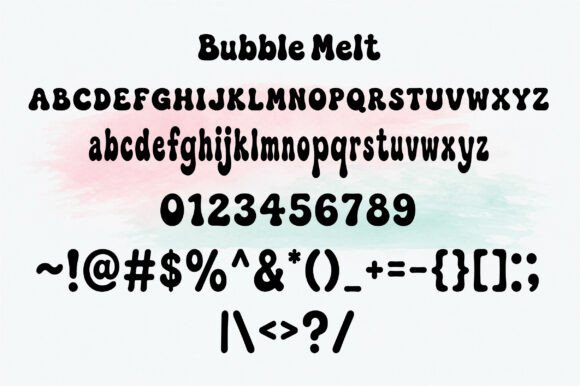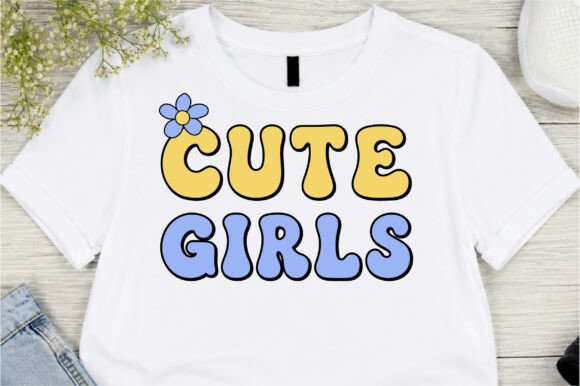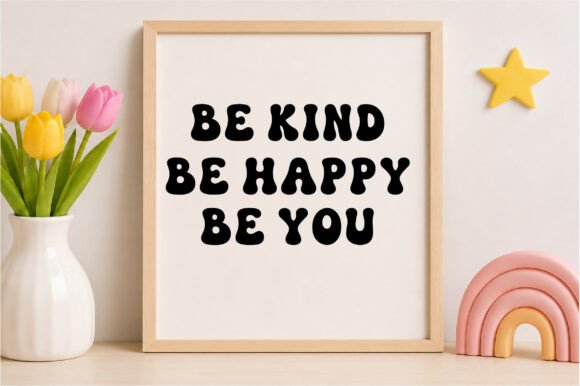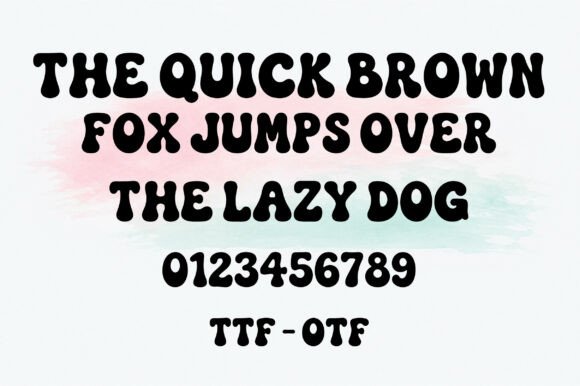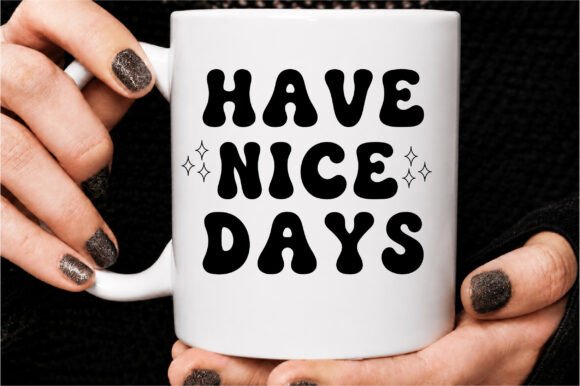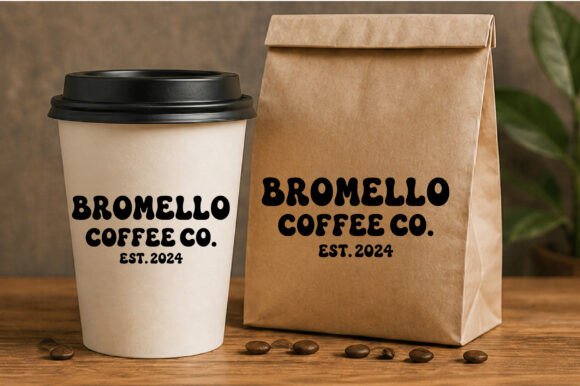
Get Ready to Make a Splash with Your Designs
Who hasn’t had one of those moments where you’re brainstorming ideas for a project and suddenly, a spark of creativity hits you? Maybe it’s a quirky character, a bright color palette, or a playful font that sets your imagination ablaze. For designers, it’s these eureka moments that can turn a good project into a truly unforgettable one.
Introducing the Bubble Melt Font, a delightful display font that’s sure to bring a smile to your face. With its soft, bubbly shapes and cute retro style, it’s perfect for kids’ designs, posters, t-shirts, and even social media. Whether you’re a seasoned pro or a design newbie, this font is a valuable addition to your toolkit. Its versatility and charm make it a must-have for any project that needs a little extra whimsy.
Bubble Melt Font Key Features
- Character Set: This font features a comprehensive set of characters, including uppercase and lowercase letters, numerals, punctuation marks, and special characters, making it suitable for various applications.
- Unique Characteristics: The Bubble Melt Font features a unique, hand-drawn design with rounded edges and subtle texture, giving it a playful and whimsical feel that is perfect for creative projects and designs.
Bubble Melt Font Review
Overall, I think the Bubble Melt Font has some great qualities that could make it a fun addition to a design project. Here are some things that work well:
- ✨ Unique and playful feel: The Bubble Melt Font has a fun, whimsical vibe that could be perfect for a children’s book, a cartoon, or a social media campaign.
- ✨ Easy to read: Despite its quirky appearance, the font is still easy to read, making it a great choice for body text or headlines.
- ✨ Versatile: The font comes in a range of weights and styles, making it easy to use in a variety of contexts.
- ⚠️ Limited legibility at small sizes: While the font is easy to read at larger sizes, it can become difficult to decipher at smaller sizes, which may limit its use in certain contexts.
- ⚠️ Not suitable for formal or professional projects: The Bubble Melt Font’s playful vibe may not be suitable for formal or professional projects, such as business reports or technical documents.
Overall, I think the Bubble Melt Font is a fun and versatile choice for designers who want to add some personality to their projects. Just be aware of its limitations and use it judiciously.
Bubble Melt Font Practical Application Guide
The Bubble Melt Font is ideal for creating eye-catching titles, headings, and graphics for social media, presentations, and marketing materials. It’s also great for adding a playful touch to children’s birthday invitations, party decorations, and educational materials.
To get the most out of the Bubble Melt Font, experiment with different font sizes, colors, and shapes to achieve the desired effect. Use the ‘Layer’ feature to add multiple text layers with decreasing font sizes for a more dynamic effect. Also, don’t be afraid to mix and match the Bubble Melt Font with other fonts and graphics to create a unique and eye-catching design.